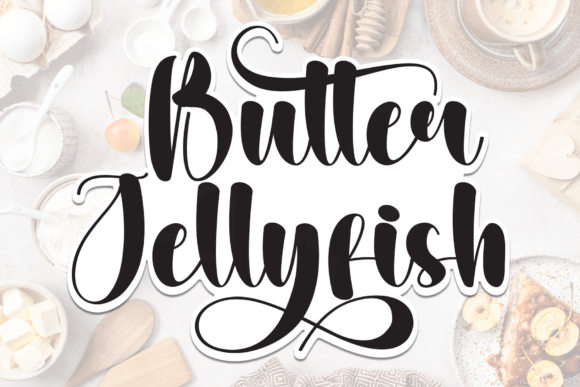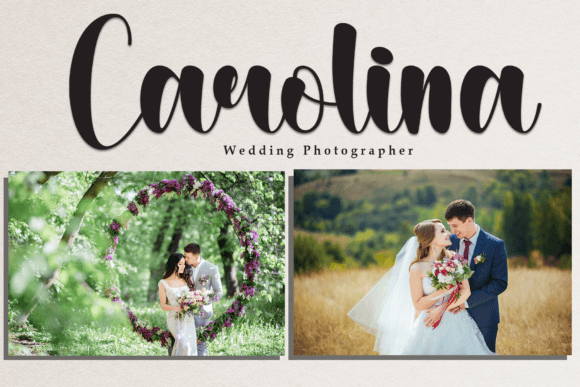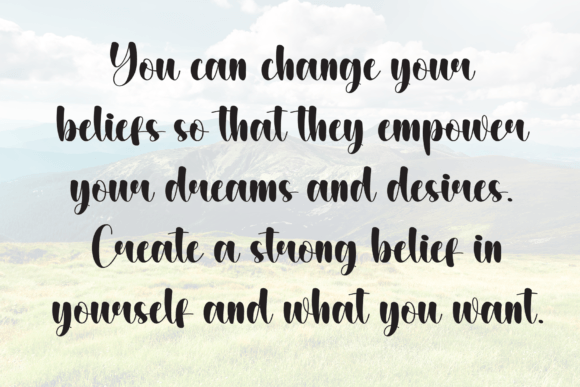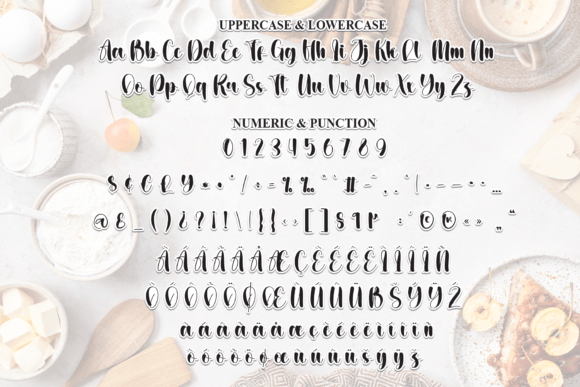
Unleashing the Whimsy of Butter Jellyfish Font
Have you ever found yourself stuck in a design rut, yearning for a font that exudes elegance and sophistication, yet still whispers a hint of playfulness? I know I have. For me, it was the moment I stumbled upon the enchanting Butter Jellyfish Font. Its fluid, organic strokes seemed to dance across the page, beckoning me to let my creativity run wild.
As a modern handwritten font, Butter Jellyfish is the perfect blend of refinement and whimsy. Its refined letterforms and elegant feel make it an ideal choice for upscale packaging, branding, and editorial designs. With the Butter Jellyfish Font, designers can bring a bespoke, artisanal feel to any project, elevating their work to new heights of sophistication and charm.
Butter Jellyfish Font Key Features
- Font Family: Butter Jellyfish, a unique and whimsical font designed to evoke a sense of playfulness and wonder.
- Size: The font comes in 6 styles, each with its own distinct characteristics: Thin, Light, Regular, Medium, Bold, and Black.
- Unique Characteristics: Features an organic, hand-drawn feel with intricate details and textures, making it perfect for creative projects.
Review of Butter Jellyfish Font
When I first saw the Butter Jellyfish Font, I was immediately drawn to its playful and whimsical feel ✨. The font’s rounded edges and bubbly texture evoke a sense of fun and playfulness, making it perfect for children’s books, party invitations, or any design project that needs a dash of personality.
The font’s versatility is another major plus ✨. It comes in a range of weights and styles, from light and delicate to bold and statement-making. This makes it easy to use in a variety of contexts, from headings to body text.
- ⚠️ The font’s readability can be a concern in smaller sizes, particularly for body text. The rounded edges and bubbly texture can make it difficult to read quickly and easily.
- ⚠️ The font’s playfulness may not be suitable for all design projects, particularly those that require a more serious or professional tone.
Overall, I think the Butter Jellyfish Font is a great addition to any designer’s toolkit ✨. While it may have some limitations, its unique personality and versatility make it a standout choice for projects that need a little extra flair.
Use the Butter Jellyfish font for creative and whimsical designs, such as:
- Food and drink branding
- Party and event invitations
The Butter Jellyfish Font is a playful, handwritten font often used in casual and creative projects. However, sometimes designers may be looking for alternative fonts with similar characteristics. Here are a few options:
Great Vibes is a modern, handwritten font designed to evoke a sense of relaxation and calmness. It is suitable for projects that require a laid-back, beachy vibe, such as travel brochures, advertising, or packaging.
Comparison to Butter Jellyfish Font: Great Vibes is more elegant and refined, making it a better choice for high-end projects. While it shares a similar handwritten feel, it has a more sophisticated look.
Pacifico is a beautiful, script font inspired by the Pacific coast. It is perfect for projects that require a touch of sophistication and elegance, such as wedding invitations, restaurant menus, or luxury branding.
Comparison to Butter Jellyfish Font: Pacifico has a more polished and refined look, making it a better choice for formal projects. While it shares a similar handwritten feel, it has a more classic and timeless look.
Alex Brush is a elegant, handwritten font with a touch of whimsy. It is suitable for projects that require a creative and artistic touch, such as children’s books, advertising, or packaging.